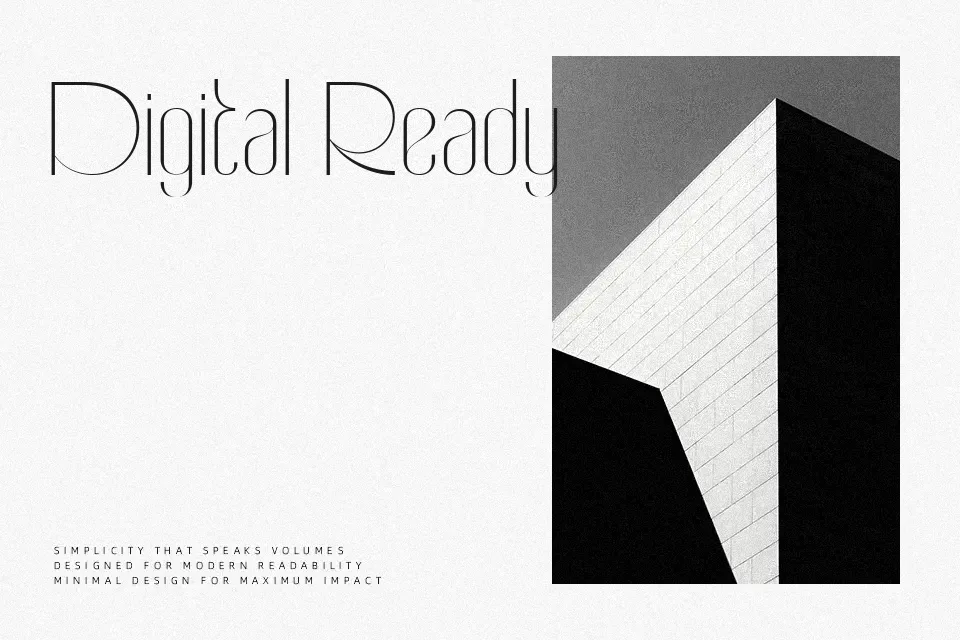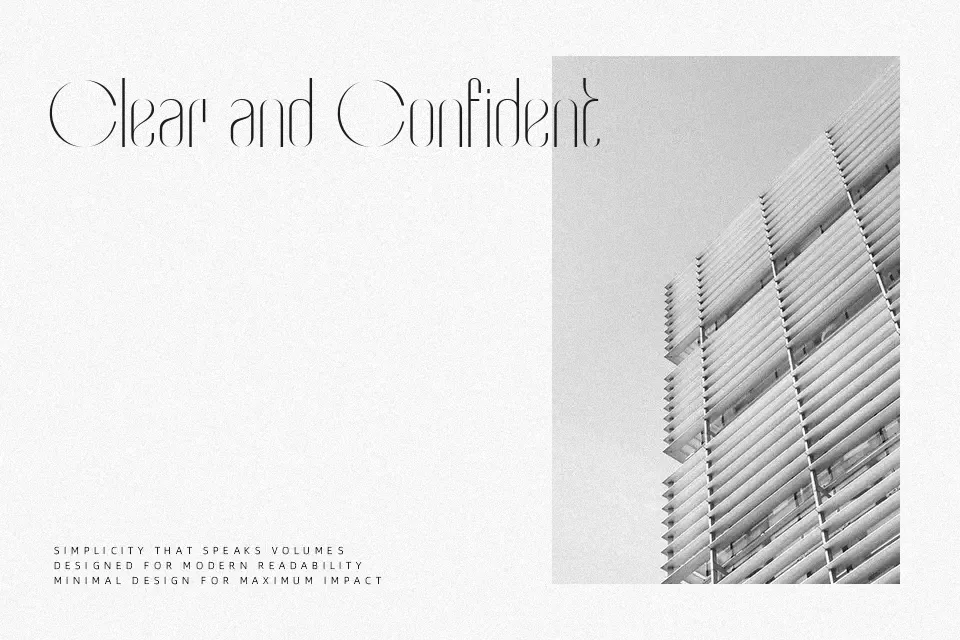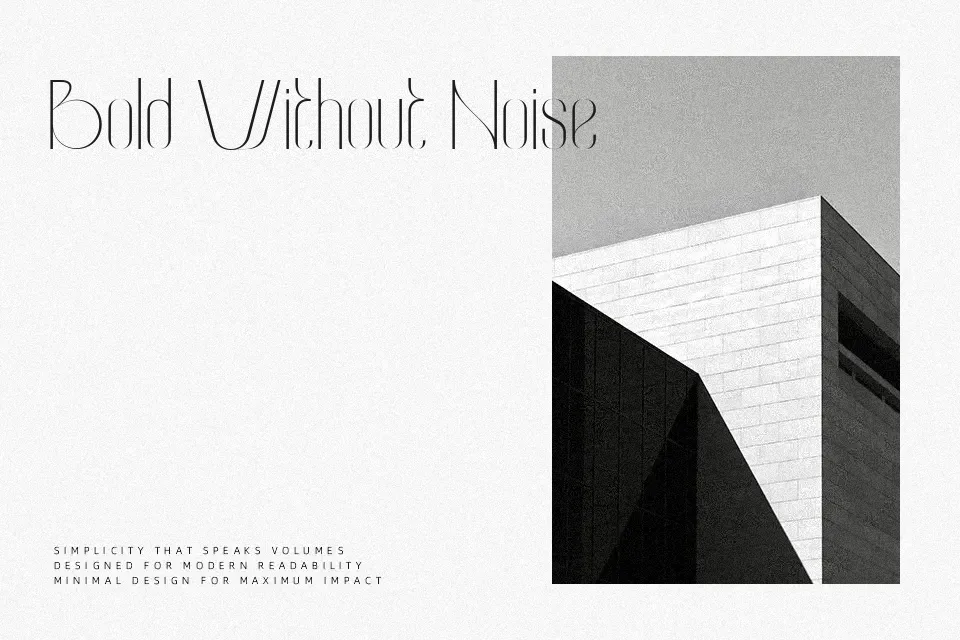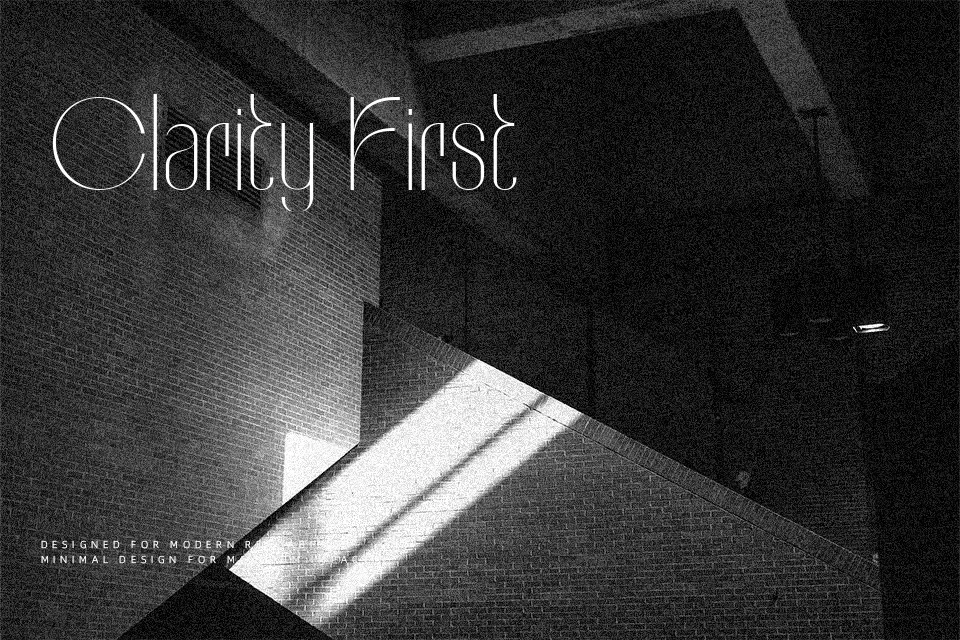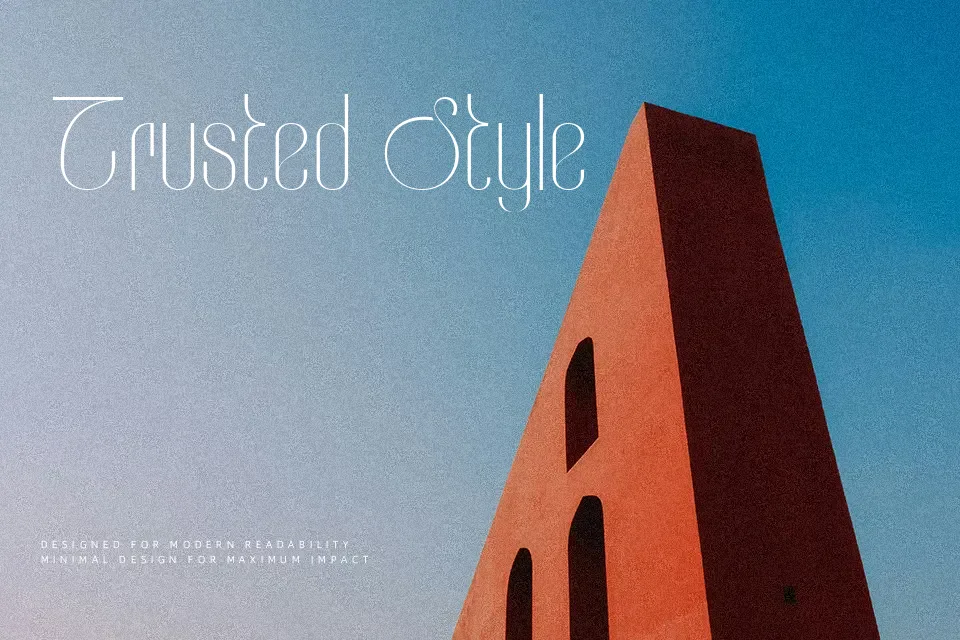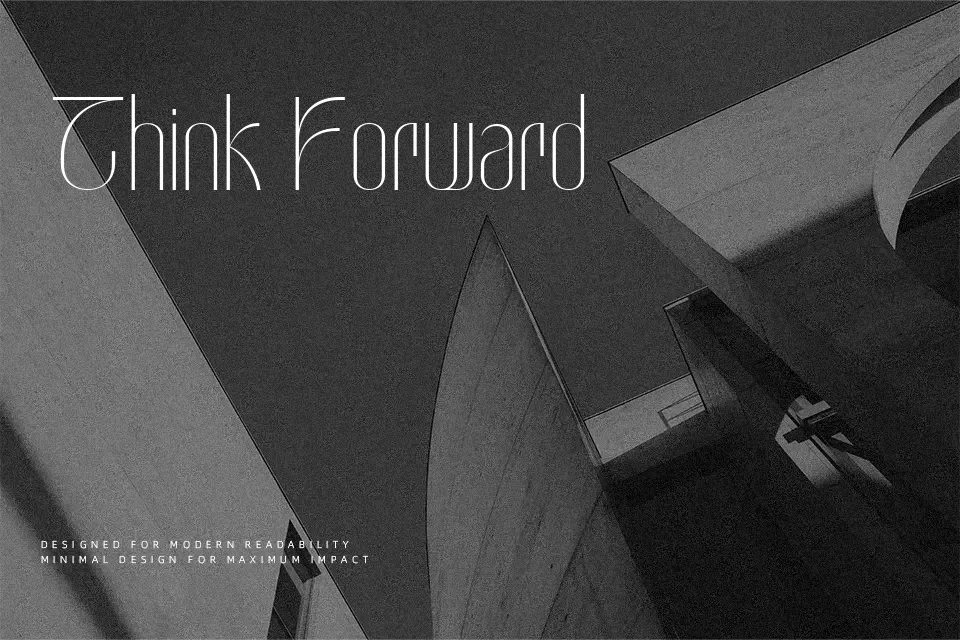
Suorva Font
Suorva Font presents an elegant display sans serif structure featuring tall vertical proportions, consistent stroke weight, and subtle artistic inflections along curved terminals. Generous tracking and open inner counters give the letterforms a crisp, architectural presence that excels across magazine covers, minimalist packaging, and cosmetic identity systems. Readability remains sharp at headline scales, though the uniform line thickness and delicate structural nuances become noticeably less effective in continuous paragraph settings. The design functions at its highest level when given ample breathing room in sparse layouts, making it an excellent choice for upscale visual treatments where typographic refinement outweighs dense text density.
– luxury fashion lookbooks
– cosmetic product packaging
– magazine title headers
– upscale boutique branding
– long body paragraphs
– dense technical documentation
– small mobile captions
– spreadsheet data
Perfect for branding, fashion, and headline, with a clean and display style.